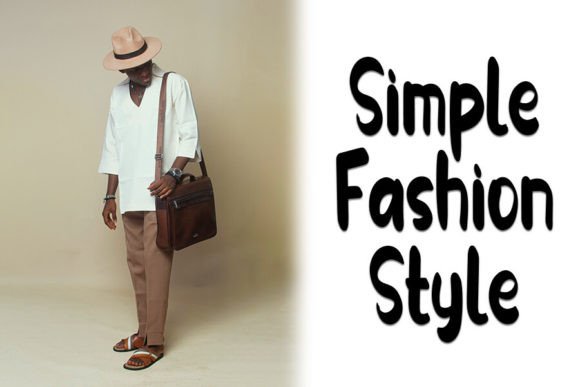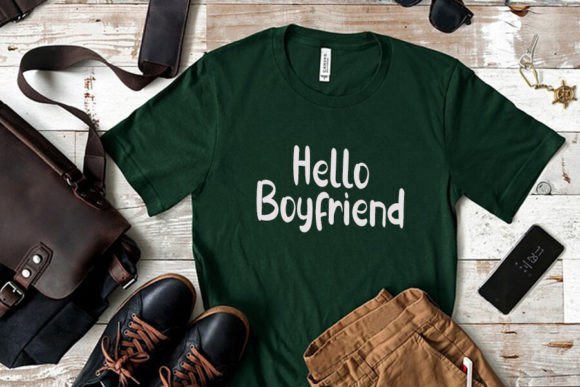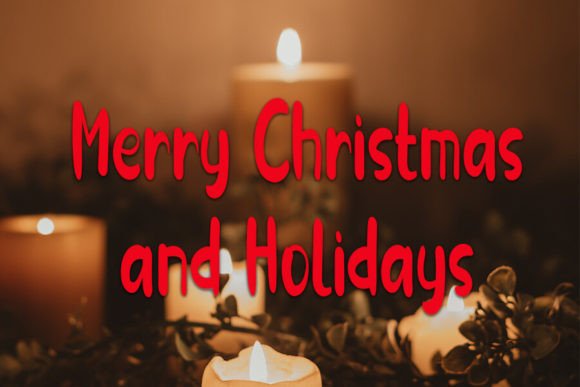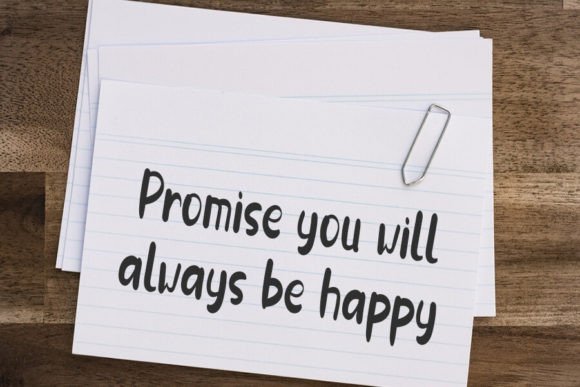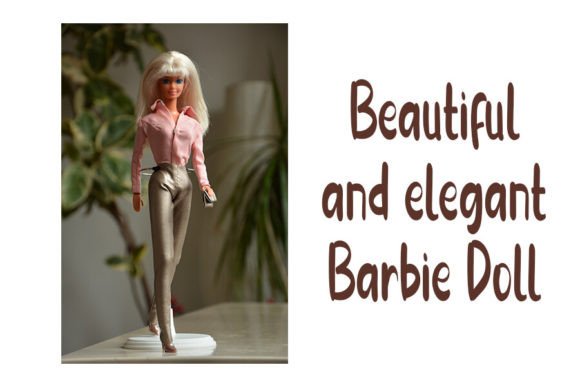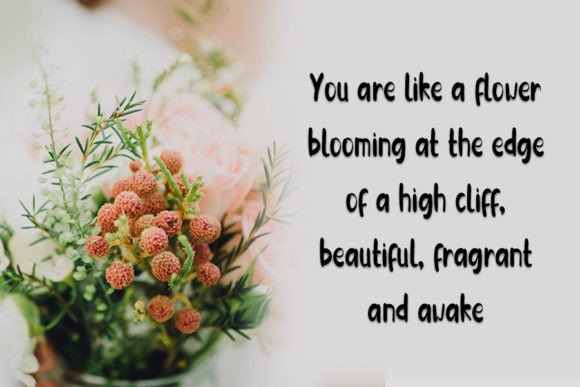
Falling Font: The Perfect Choice for Creative Designs
Are you looking for a font that can add a touch of elegance and sophistication to your designs? Look no further than Falling Font, a casual and relaxed handwritten display font that is sure to capture your heart. With its incredibly versatile style, Falling Font is perfect for creating a wide range of designs, from gorgeous wedding invitations to beautiful stationary art, eye-catching social media posts, and much more.
The Characteristics of Falling Font
Falling Font is a handwritten display font that exudes a sense of casual elegance. Its relaxed and fluid strokes give it a natural, effortless look that is perfect for designs that require a personal touch. The font features a unique blend of cursive and print elements, making it both stylish and easy to read. Whether you’re looking to create a romantic wedding invitation or a bold social media post, Falling Font is the perfect choice.
What Makes Falling Font So Versatile?
One of the things that sets Falling Font apart from other fonts is its incredible versatility. The font can be used in a wide range of designs, from formal to informal, and can be easily paired with other fonts to create a unique look. Whether you’re designing a wedding invitation, a social media post, or a piece of stationary art, Falling Font can be used to add a touch of elegance and sophistication.
Using Falling Font for Wedding Invitations
Wedding invitations are one of the most popular uses for Falling Font, and for good reason. The font’s elegant and sophisticated style is perfect for formal wedding invitations, while its casual and relaxed style makes it ideal for more informal wedding designs. Whether you’re looking to create a traditional wedding invitation or something more modern and unique, Falling Font is the perfect choice.
Creating Beautiful Stationary Art with Falling Font
Falling Font is also perfect for creating beautiful stationary art, such as greeting cards, thank you cards, and more. The font’s elegant style and versatility make it easy to pair with other design elements, such as images, patterns, and textures, to create unique and eye-catching designs. Whether you’re looking to create a simple and elegant design or something more elaborate, Falling Font is the perfect choice.
Eye-Catching Social Media Posts with Falling Font
In addition to its use in print designs, Falling Font is also perfect for creating eye-catching social media posts. The font’s bold and elegant style makes it perfect for creating social media graphics, such as Facebook posts, Instagram graphics, and more. Whether you’re looking to promote a product, service, or event, Falling Font can be used to create a social media post that is sure to grab attention.
Tips for Using Falling Font
Here are a few tips for using Falling Font in your designs:
- Pair Falling Font with other fonts to create a unique look. Some popular font pairings include serif fonts, such as Times New Roman or Garamond, and sans-serif fonts, such as Arial or Helvetica.
- Experiment with different font sizes and colors to add visual interest to your designs.
- Use Falling Font to add a personal touch to your designs. The font’s handwritten style makes it perfect for creating designs that feel personal and unique.
Falling Font is a versatile and elegant handwritten display font that is perfect for creating a wide range of designs. With its incredibly versatile style, Falling Font can be used to create gorgeous wedding invitations, beautiful stationary art, eye-catching social media posts, and much more. Whether you’re a designer or a crafter, Falling Font is a great addition to your font collection.